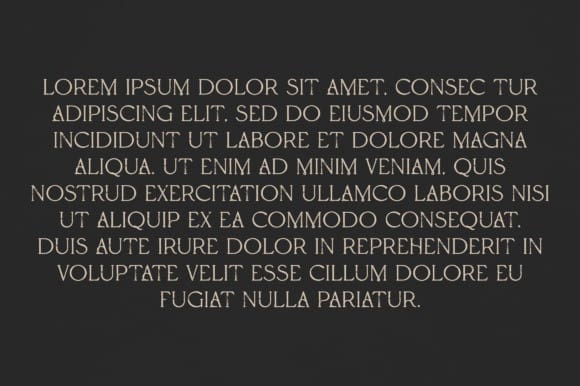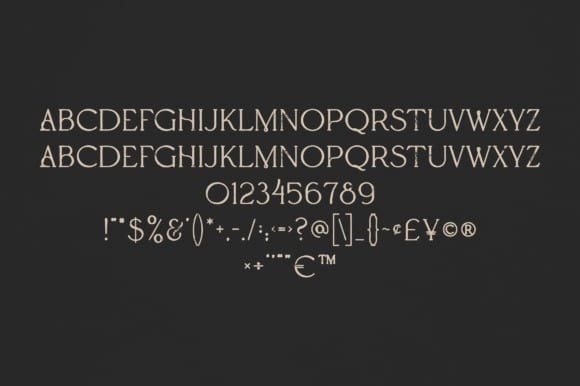
Lucinda Font
Lucinda Font is an elegant and versatile font that will make your typography truly unique! It will enchant every logo, branding, headline, or plain text!